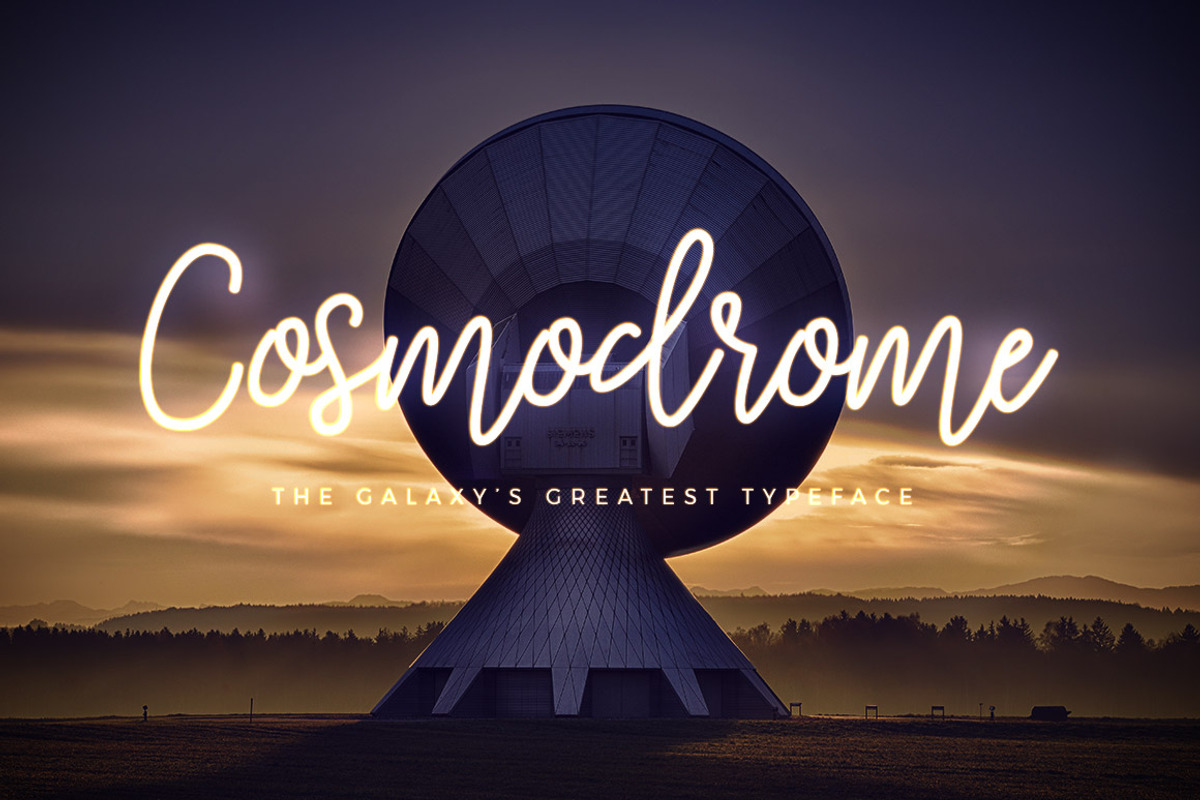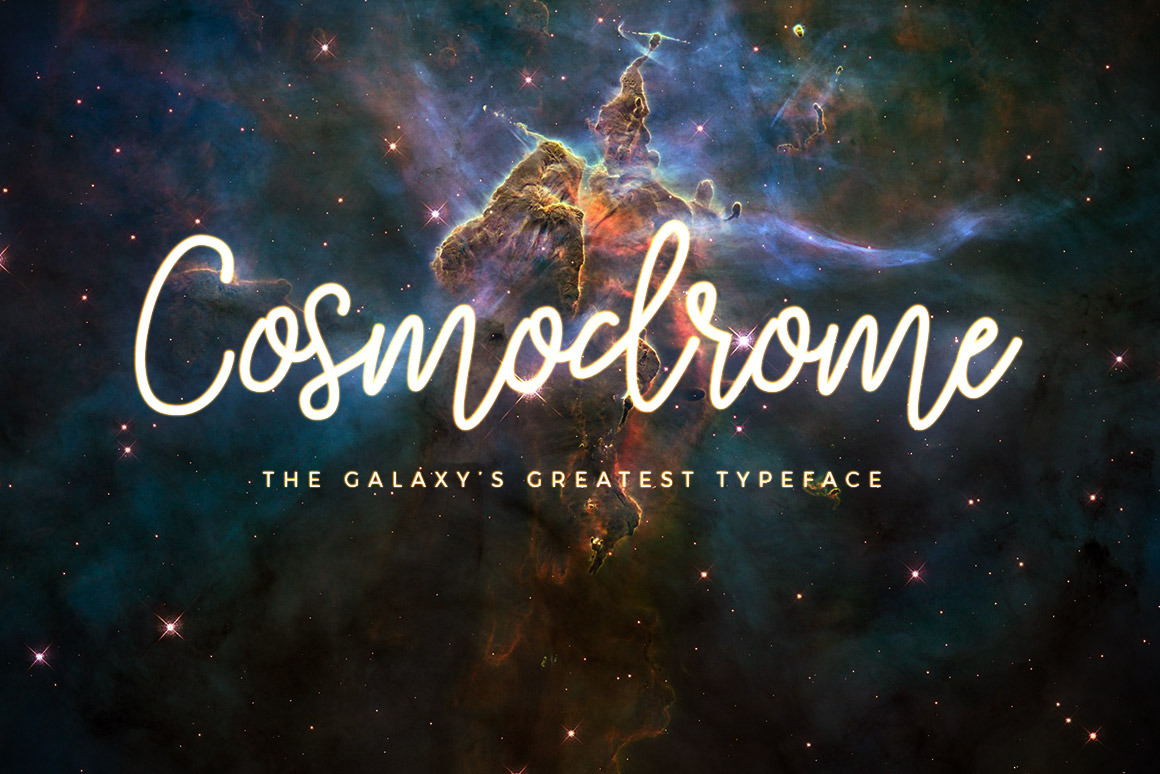
Cosmodrome Monoline Script Font
Cosmodrome Monoline Script is a typeface with a seriously fun aesthetic, perfect for logos, posters, signage, and more.
Included are standard Latin characters, extended Latin characters for multilingual support, select ligatures, and a complete set of numbers and symbols.
Cosmodrome is as flexible as it is beautiful, and works for everything from futuristic posters to feminine logotypes.